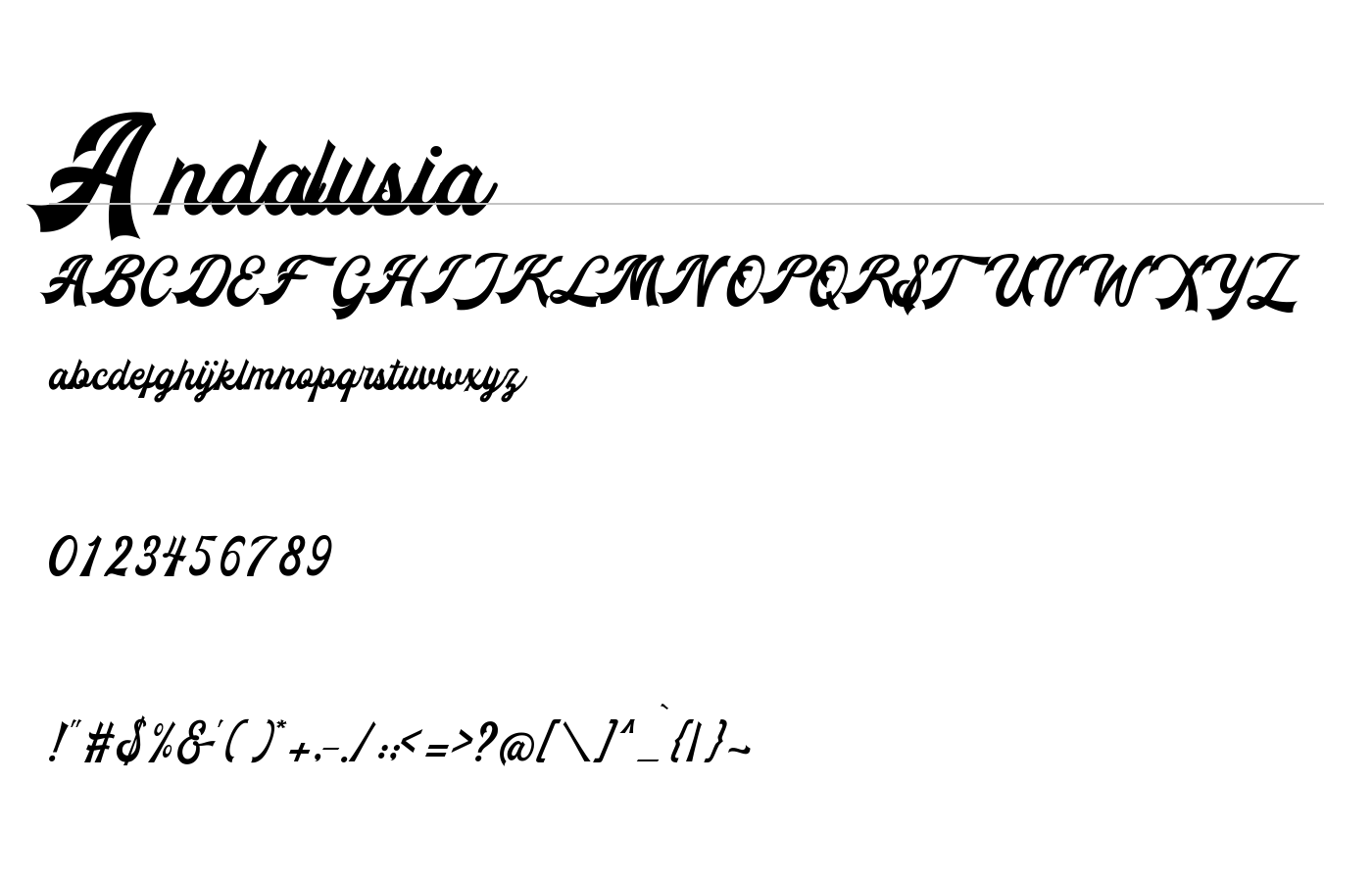
Andalusia is a bold, elegant script font that combines classic calligraphic curves with strong, slightly condensed letterforms. Its high contrast strokes and distinctive flourishes give it a vintage yet sophisticated feel, making it ideal for luxurious branding, invitations, and eye-catching headlines where a touch of refinement is desired. This font works best in display settings, adding a graceful, ornamental flair that suits fashion, boutique, and upscale editorial designs.
Andalusia Font
About Andalusia Font